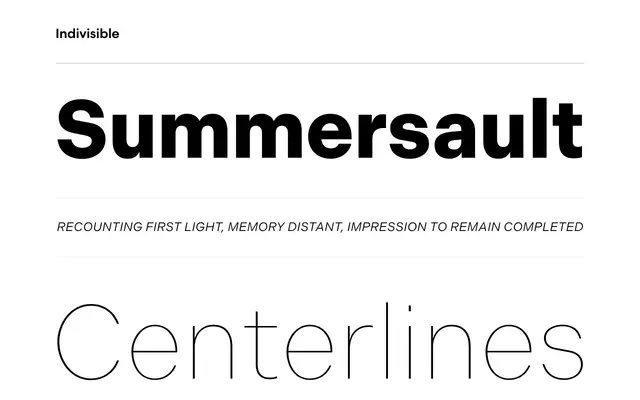
Indivisible
Process Type Foundry · Eric Olson · 2019
A general-purpose sans by Eric Olson drawing on neo-grotesque and geometric traditions, offered in seven weights with italics and variable font support.
Eric Olson spent several years on Indivisible, balancing the plainness of neo-grotesque conventions with a degree of geometric warmth and personal preference. The family runs to fourteen styles across seven weights, each with a matching italic, and desktop or web licence holders receive variable Roman and variable Italic fonts at no extra cost. OpenType features include case-sensitive glyphs, proportional and tabular lining numerals, and pre-built fractions.
Described by the foundry as distilled from neo-grotesque and geometric influences; shares the rational structure and even stroke contrast of the neo-grotesque tradition while admitting some geometric warmth.